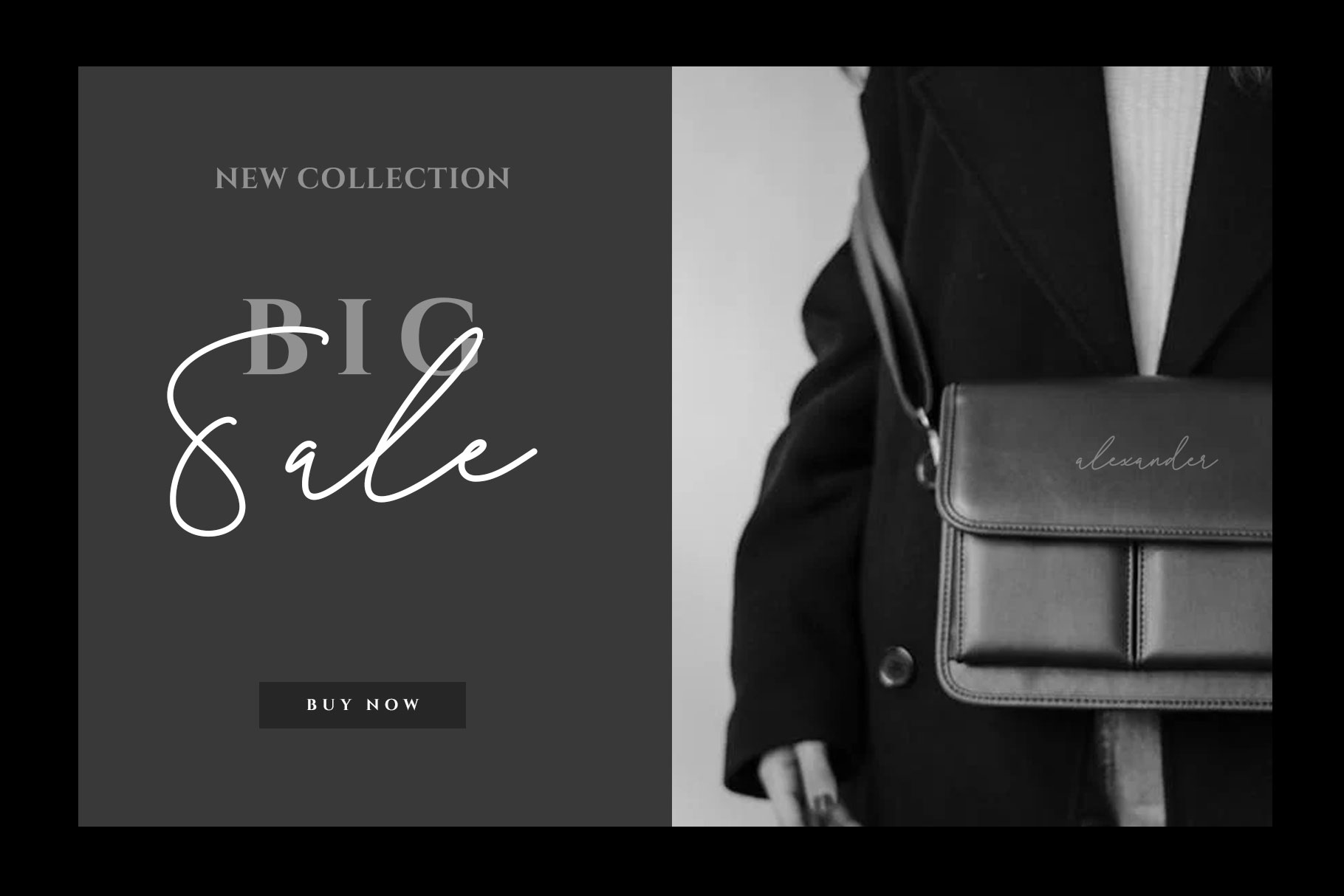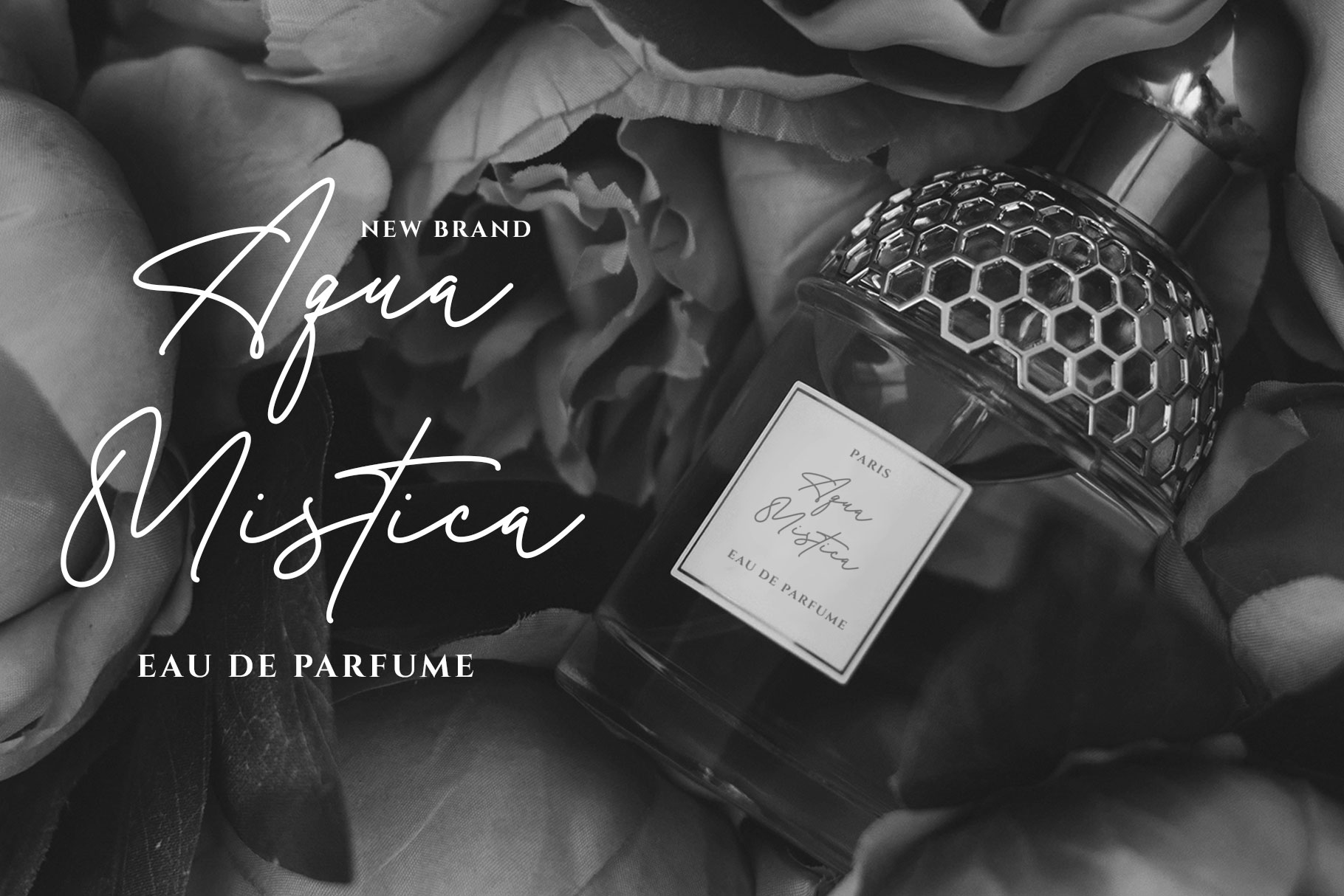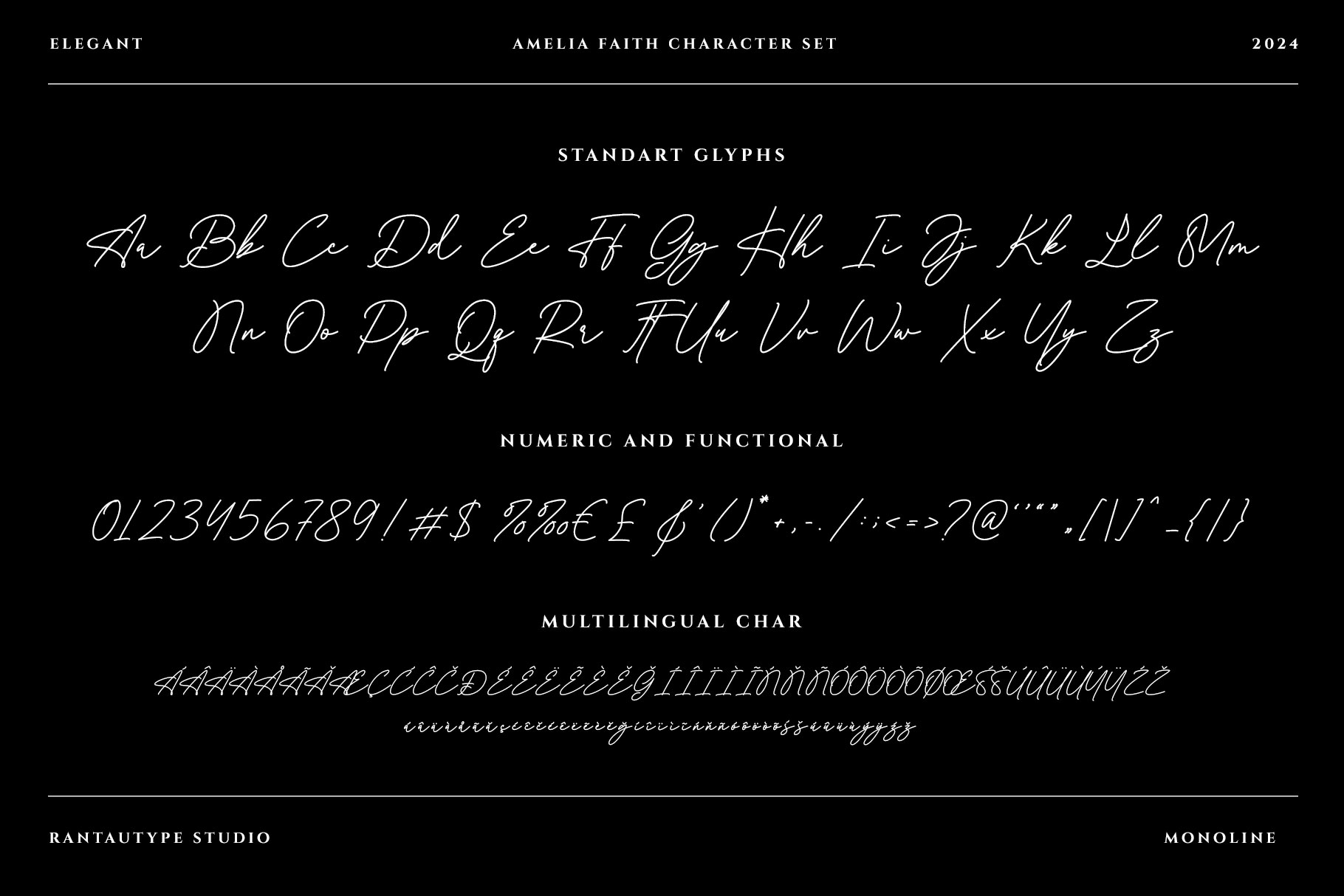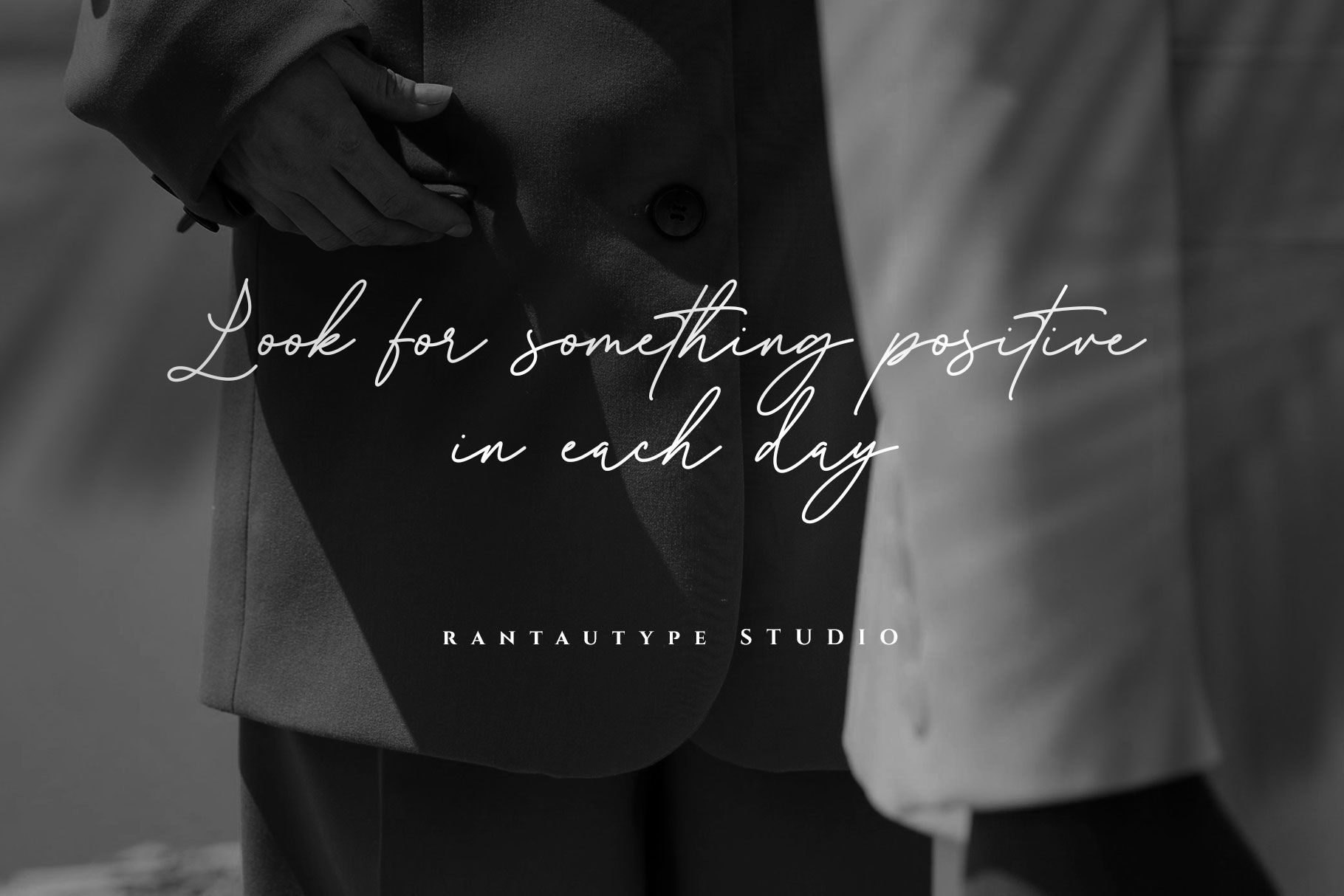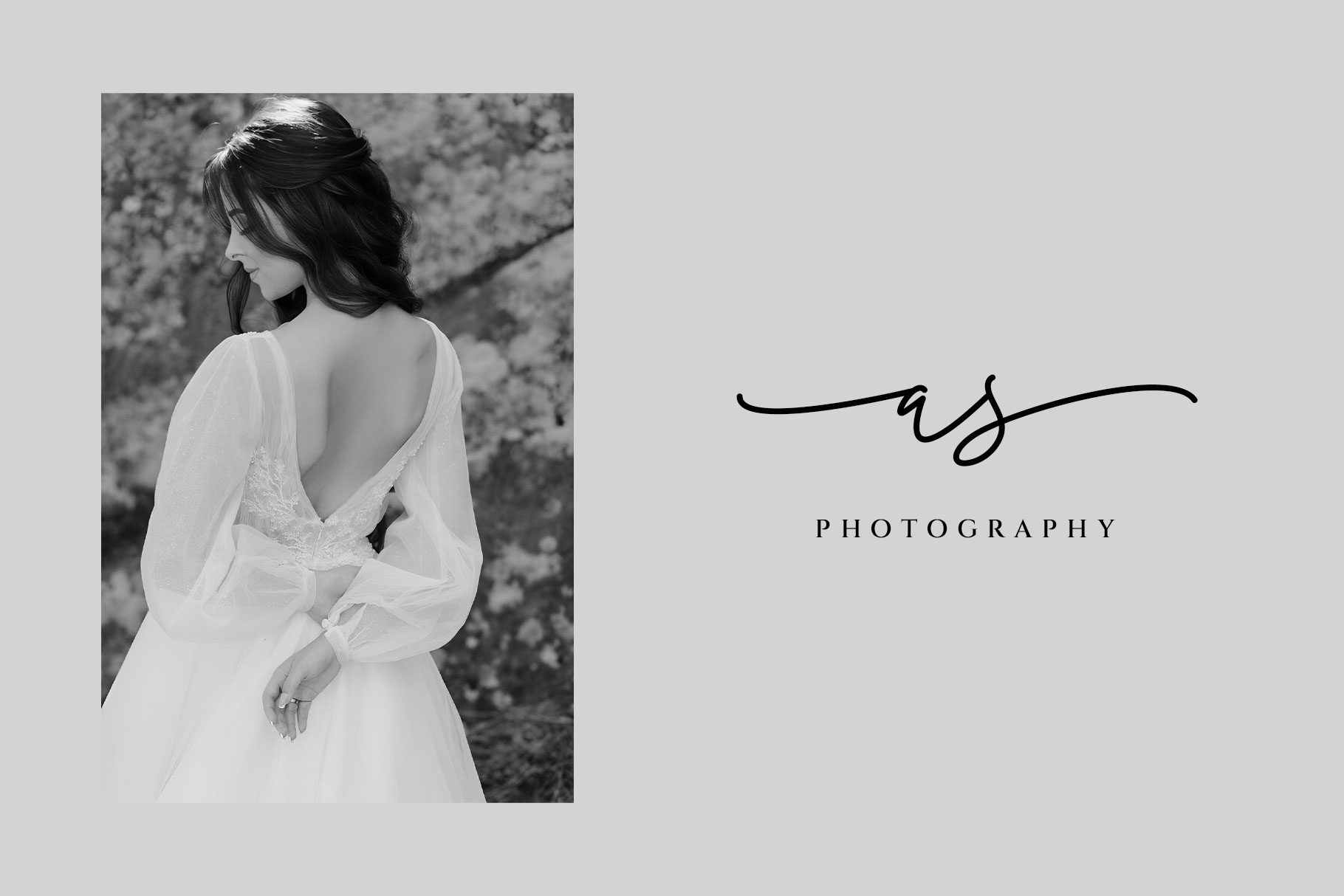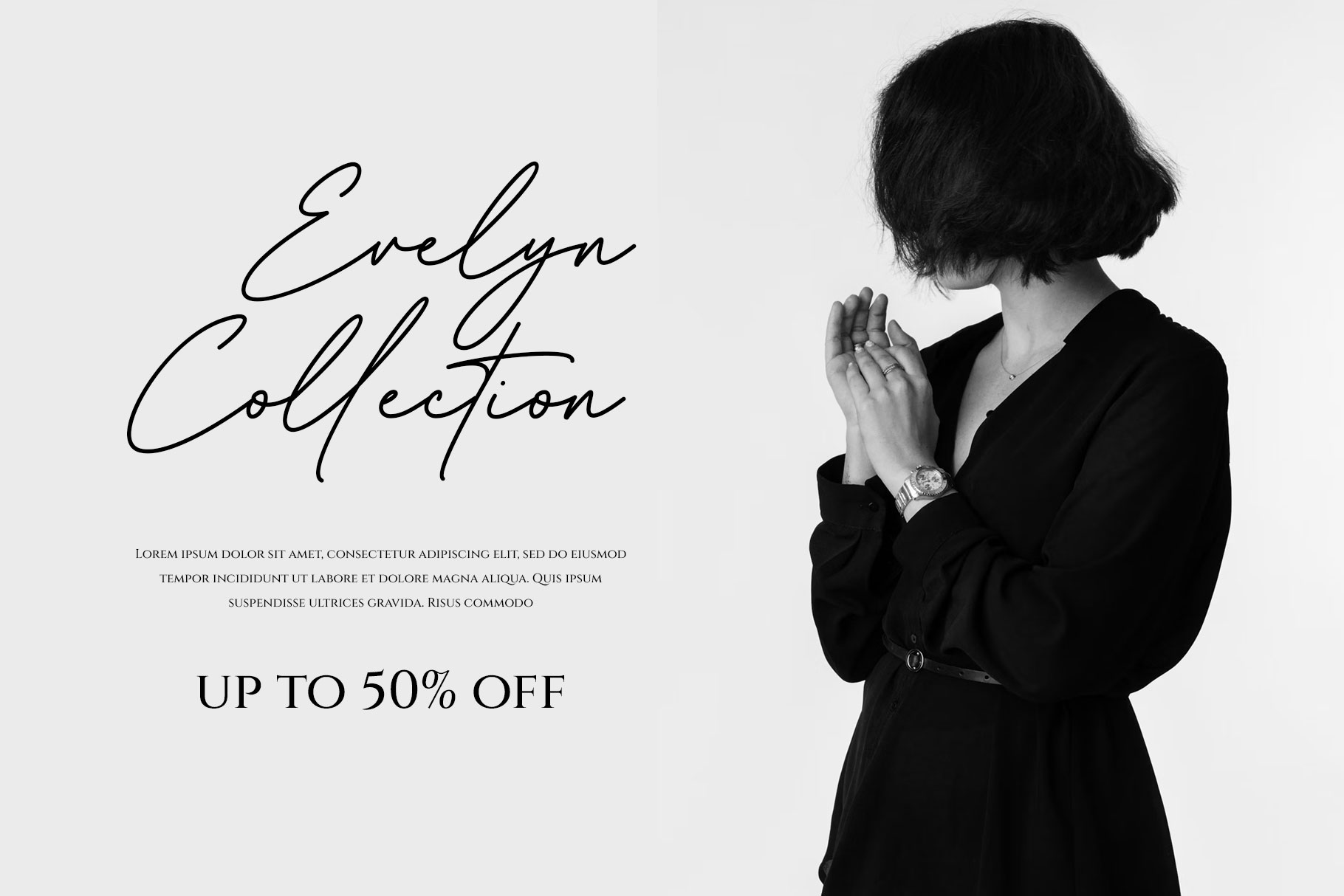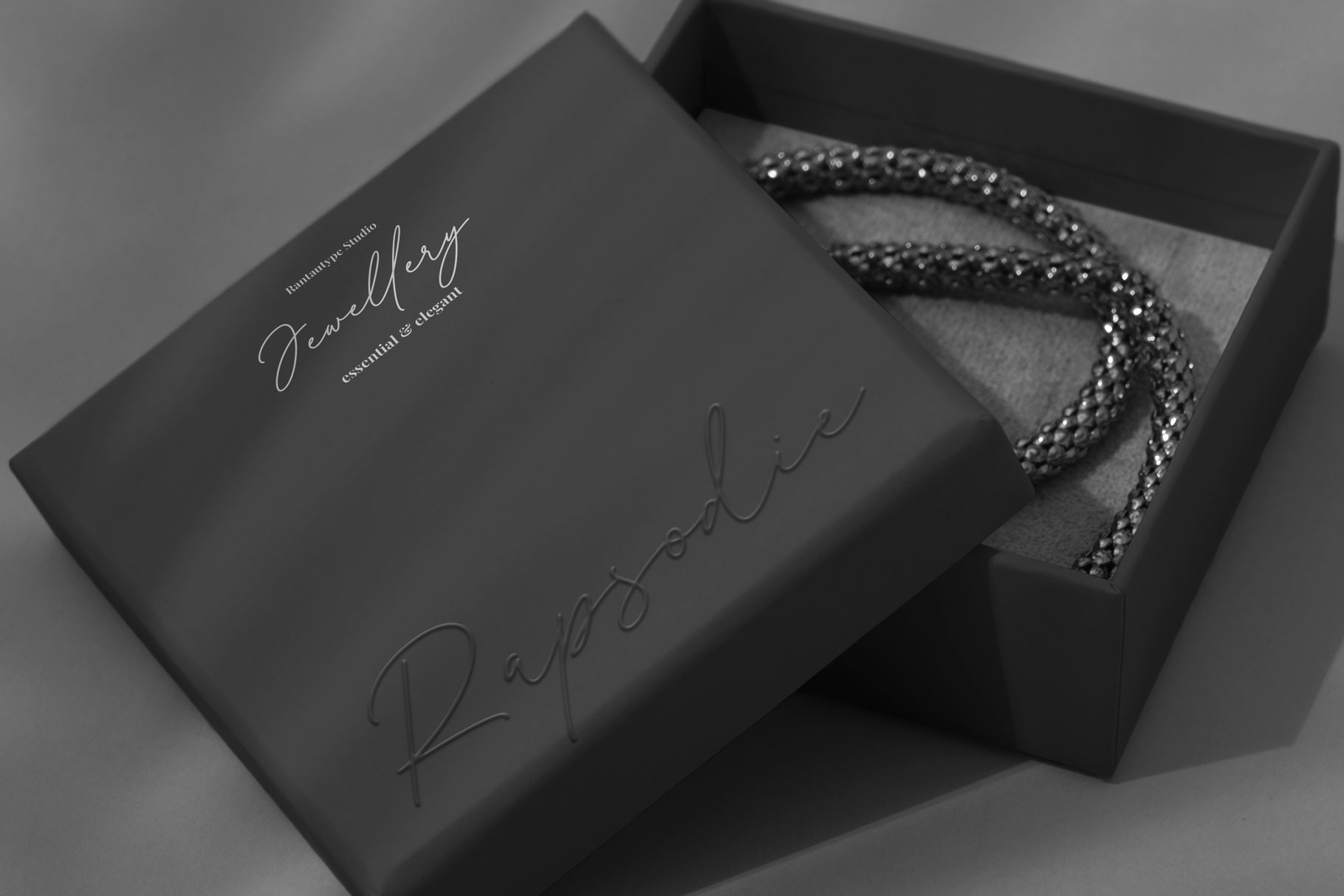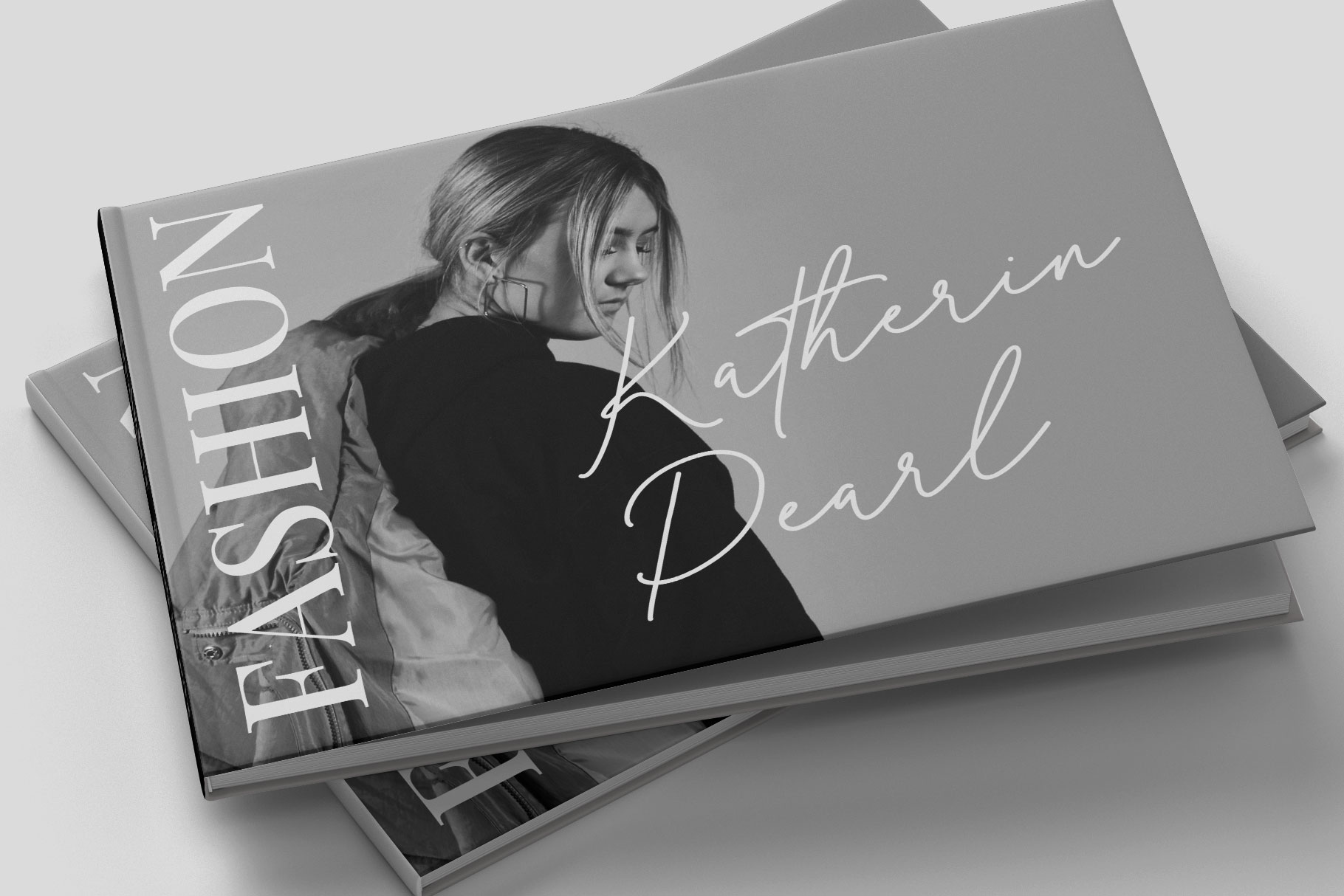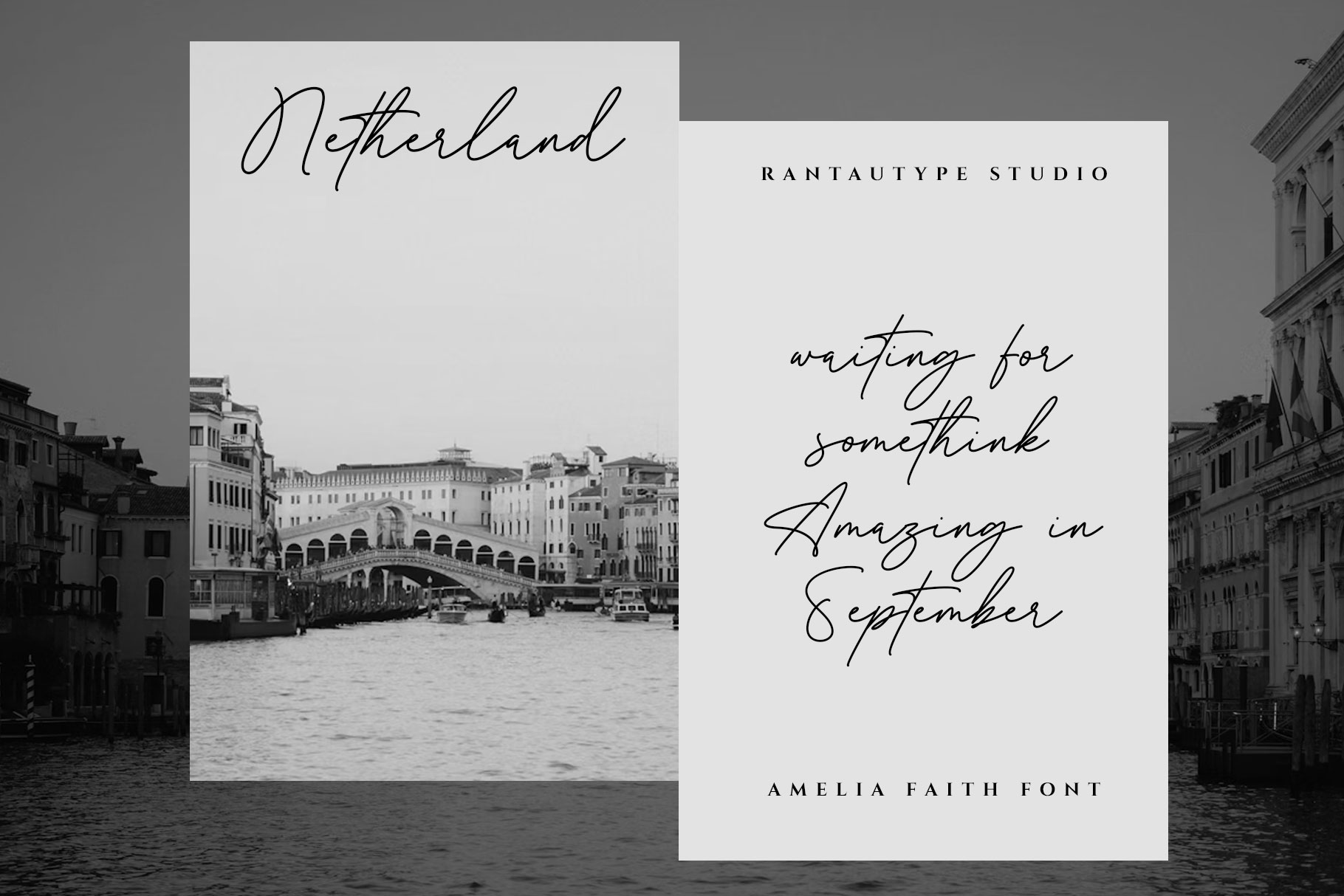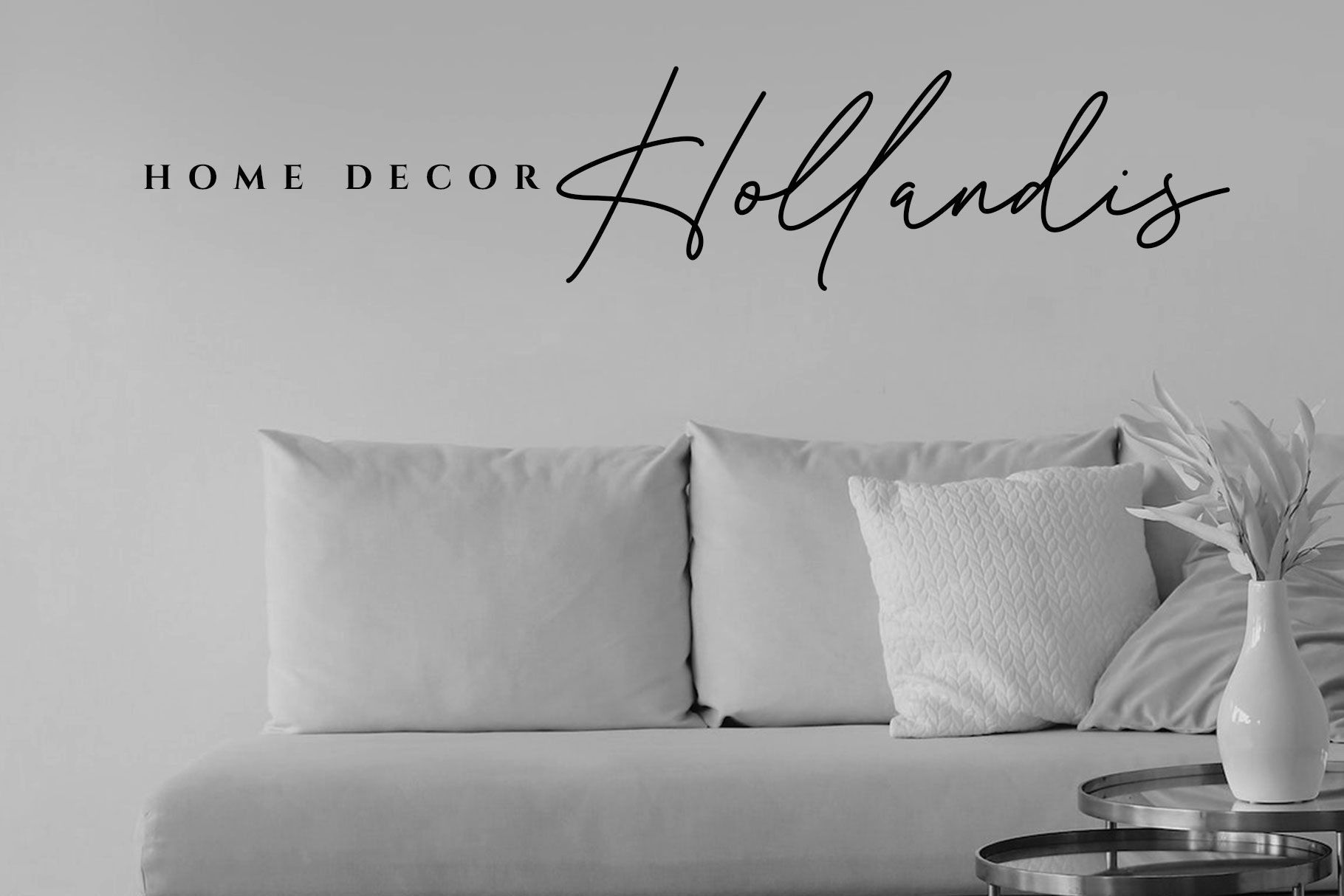
Amelia Faith Monoline Font
Amelia Faith is monoline script font with beautiful begining and end tail. Amelia faith come with soft curve and embrace of elegance to help you create awesome design project.
Amelia Faith is a beautiful choice for any creative endeavor, great choice for watermark on photography, branding, wedding event, signature or signature logo design, quotes, album cover, magazine, business card and many other design project with handwriten taste.